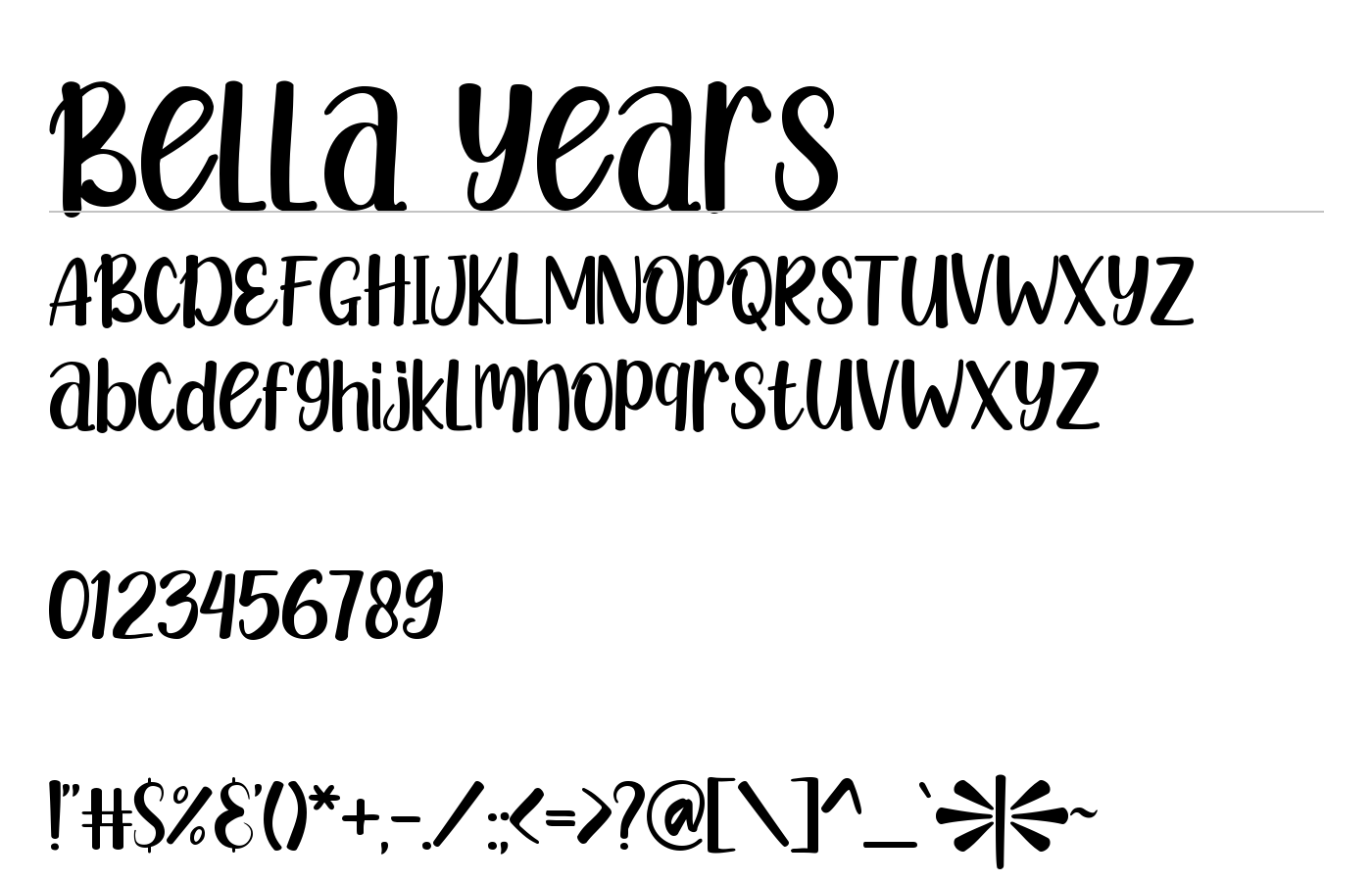
Bella Years is a fun and playful handwritten font with a casual, friendly vibe. Its tall, slightly irregular letterforms and moderate contrast give it a lively and approachable feel, making it perfect for creative projects, children’s designs, and informal branding that wants to convey warmth and personality.
Bella Years Font
About Bella Years Font
| Font family | Bella Years Font |
| Designer | Pandanwangi2020 |